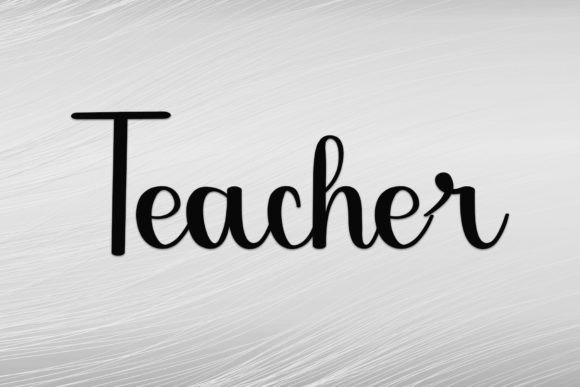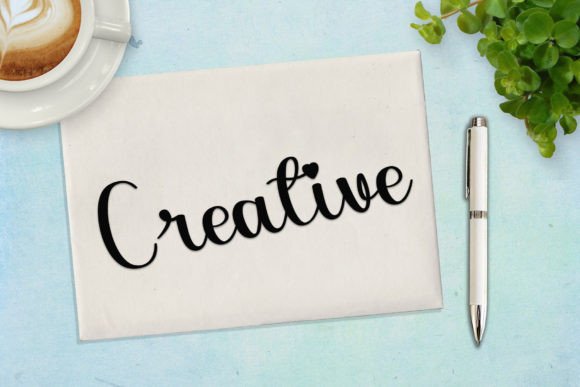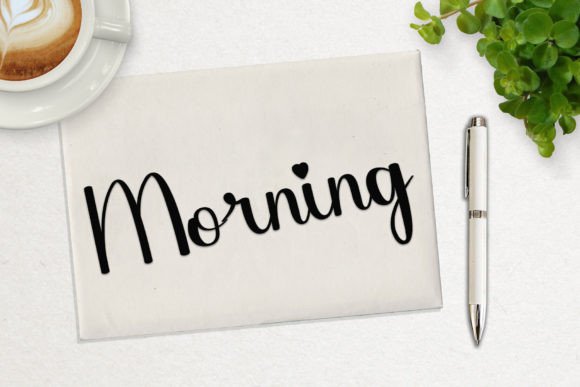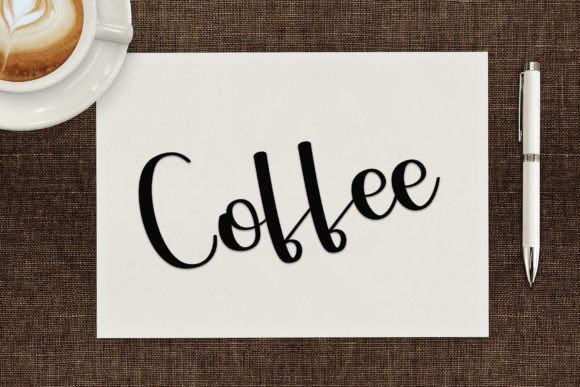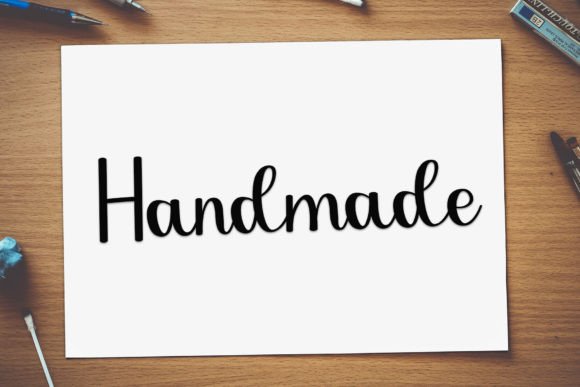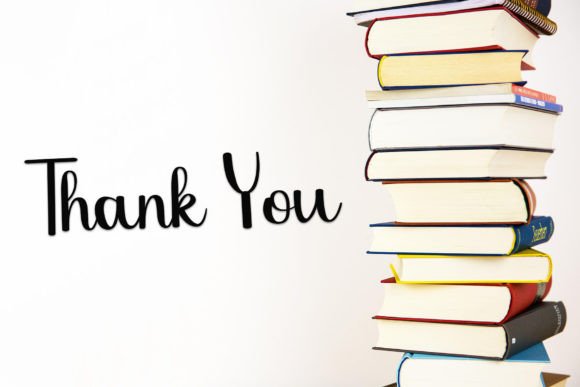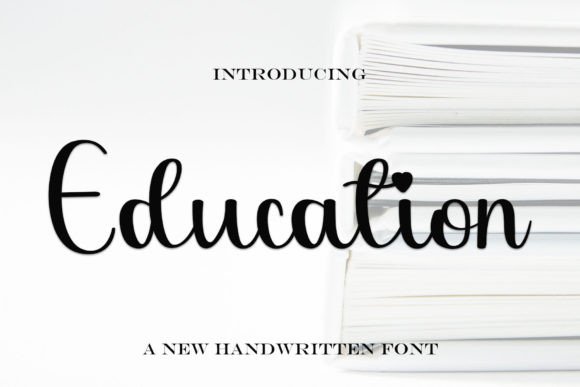
Introducing Education Font: The Perfect Blend of Class and Modernity
Are you a designer or crafter looking for a font that exudes elegance and sophistication? Look no further than Education Font, a beautifully crafted handwritten font that is sure to become your new favorite. With its classy calligraphic influences and contemporary feel, Education Font is the perfect choice for projects that require a touch of refinement and style.
The Story Behind Education Font
Education Font is a masterfully designed font that combines traditional calligraphic techniques with modern sensibilities. The result is a font that feels both timeless and fresh, making it perfect for a wide range of applications. Whether you’re working on a branding project, creating educational materials, or crafting invitations and stationery, Education Font is sure to impress.
What Makes Education Font So Special?
So, what sets Education Font apart from other fonts on the market? Here are just a few of its standout features:
- Classy Calligraphic Influences: Education Font boasts elegant, flowing lines that evoke the feeling of traditional calligraphy. Its refined strokes and precise letterforms make it perfect for projects that require a touch of sophistication.
- Contemporary and Fresh: Despite its classic influences, Education Font feels surprisingly modern and fresh. Its clean lines and simple shapes ensure that it remains highly legible, even at smaller sizes.
- Versatile: Education Font is incredibly versatile, making it suitable for a wide range of applications. Use it for headings, body text, or even titles and captions – it will always look stunning.
Education Font is a dream come true for designers and crafters who value precision, elegance, and style. Here are just a few ways you can use Education Font to elevate your projects:
- Branding and Logo Design: Create stunning logos and brand identities with Education Font. Its classy, sophisticated feel makes it perfect for businesses that want to convey a sense of refinement and expertise.
- Educational Materials: Add a touch of elegance to your educational materials, such as textbooks, workbooks, and worksheets. Education Font is easy to read and will make your materials stand out.
- Stationery and Invitations: Create beautiful stationery, invitations, and greeting cards with Education Font. Its flowing lines and refined strokes make it perfect for special occasions.
Tips for Using Education Font
To get the most out of Education Font, here are a few tips to keep in mind:
- Pair it with Other Fonts: Education Font pairs beautifully with other fonts, especially sans-serif fonts. Try combining it with a clean, modern font to create visual interest.
- Experiment with Sizes: Education Font looks stunning at a range of sizes, from large headings to smaller body text. Experiment with different sizes to find the perfect fit for your project.
- Use it for Headings: Education Font is perfect for headings and titles, where its elegant lines and refined strokes can really shine.
In conclusion, Education Font is a truly exquisite handwritten font that is sure to become a favorite among designers and crafters. Its classy calligraphic influences, combined with its modern and fresh feel, make it perfect for a wide range of applications. Whether you’re working on a branding project, creating educational materials, or crafting invitations and stationery, Education Font is the perfect choice. So why wait? Fall in love with Education Font and bring your projects to the highest levels!